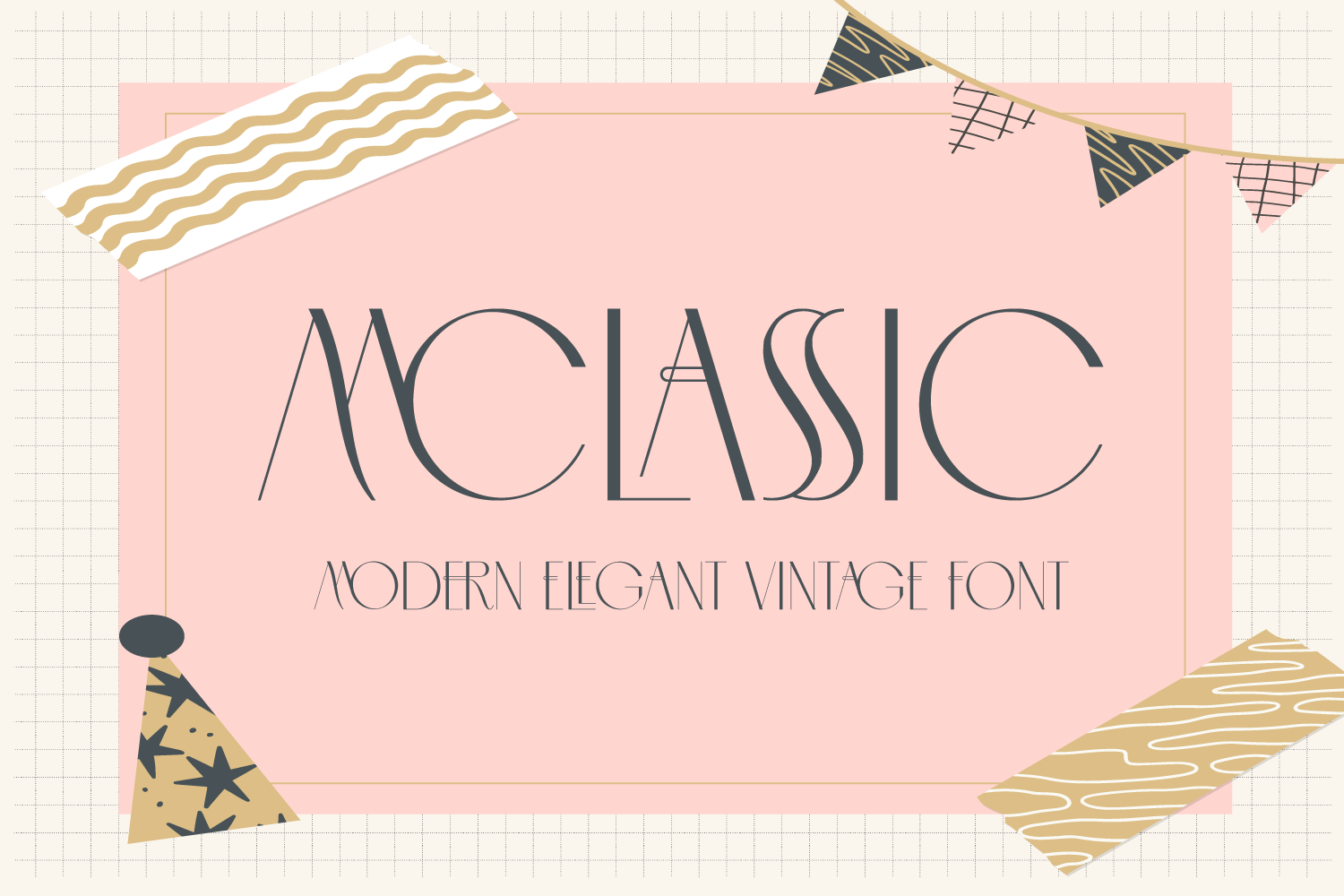
MCLASSIC FONT
Introducing MCLASSIC FONT - An elegant modern sans serif inspired by luxury fashion brands. It looks amazing at display sizes and is easily readable in text size. There are two versions of this font : REGULAR and ITALIC. Its clean and minimalistic works wonderfully on its own for logos, headlines, posters, packaging and many more!
To make it look more unique, here we prepared some ligatures:
AA AC AB AE AF AG AH AO AP AR CA CC CG CM CO CQ CX DC DG DO DQ EA EB EF EH EP ER ET EZ FA FB FF FH FP FR FT FZ HA HB HD HE HF HH HP HR KA KM KS LA LC LE LF LG LO LQ LS LT LU MC TZ TE TF THE TH TT SS ST RA RM RS QC QG QO QQ OC OG OO OQ OU MQ MO MG
aa ac ad ae af ah am an ao ar ca cc co cs dc dd de df dh dm dn do fj ft gi if ih ii ik im in ir hc hd he hf hh hi hk hm hn hr hr kf kh ki kk km kn kr lc ld le lf lh li lk lm ln lr uf uh um un tc te th tk tm tn tr sa ra ri oc of oh ok om on oo or nc ne nf nh nk nm nn nr mc me me mf mh mi mk mm mn mr ti ni fi
Include Fancy Style on Every Uppercase and Some Lowercase
MCLASSIC is also included full set of:
- Special Ligatures